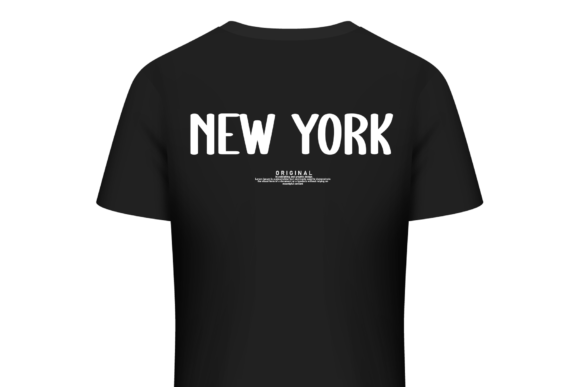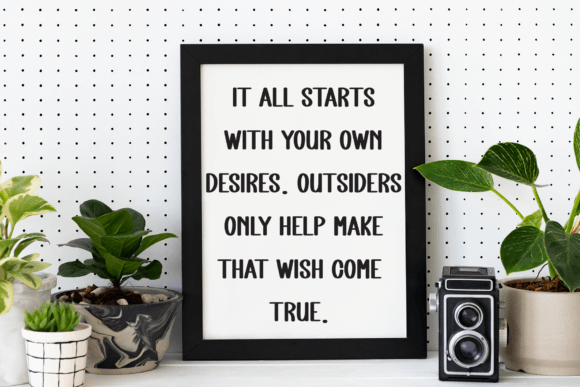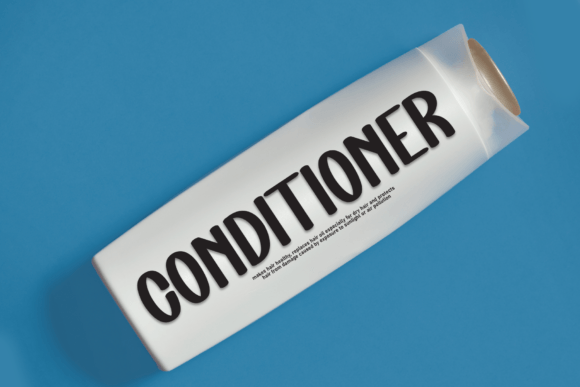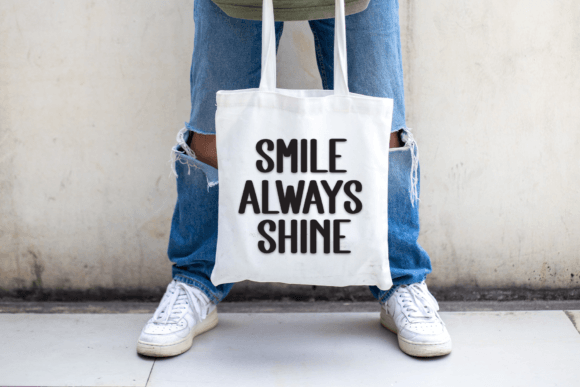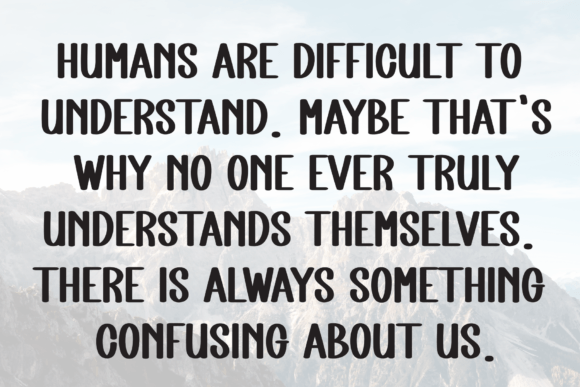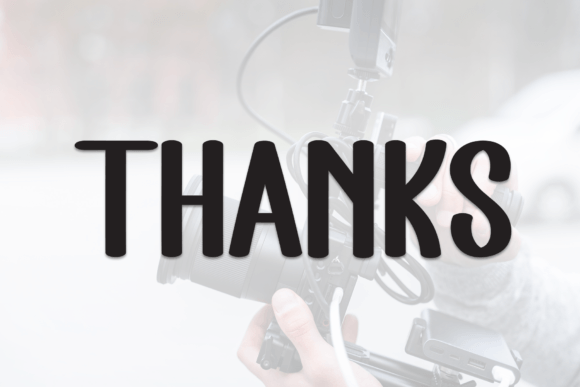
Cinematic Font: Elevate Your Designs with a Sweet and Friendly Handwritten Style
Are you tired of using the same old fonts in your designs? Look no further than Cinematic, a sweet and friendly handwritten font that’s sure to elevate your creative projects. With its natural and unique style, Cinematic is incredibly versatile and can be used in a wide range of designs, from branding and advertising to packaging and digital media. The only limit is your imagination!
The Characteristics of Cinematic Font
Cinematic is a handwritten font that’s characterized by its smooth, flowing lines and natural, effortless style. It’s a font that’s designed to look like it was written by hand, with a personal touch that’s hard to replicate with traditional fonts. The letters are rounded and friendly, with a subtle imperfections that give it a human feel. This makes Cinematic perfect for designs that require a personal touch, such as invitations, greeting cards, and social media graphics.
The Benefits of Using Cinematic Font
So why choose Cinematic font for your designs? Here are just a few benefits of using this versatile and stylish font:
- Unique and eye-catching: Cinematic font is unlike any other font out there. Its unique style and natural look make it stand out from the crowd, ensuring that your designs will grab attention and leave a lasting impression.
- Versatile: Cinematic font can be used in a wide range of designs, from formal and professional to casual and playful. Whether you’re creating a logo, brochure, or social media graphic, Cinematic font is sure to fit the bill.
- Easy to read: Despite its handwritten style, Cinematic font is incredibly easy to read, even at small sizes. This makes it perfect for body text, as well as headlines and titles.
- Customizable: Cinematic font can be easily customized to fit your design needs. Whether you want to change the color, size, or style, Cinematic font is easy to work with and can be tailored to fit your brand’s unique style.
How to Use Cinematic Font in Your Designs
So how can you use Cinematic font in your designs? Here are a few ideas to get you started:
- Branding and logos: Cinematic font is perfect for creating unique and memorable logos that will help your brand stand out.
- Invitations and greeting cards: The personal and handwritten style of Cinematic font makes it perfect for invitations, greeting cards, and other personal correspondence.
- Social media graphics: Cinematic font is a great choice for social media graphics, including Facebook posts, Instagram stories, and Twitter headers.
- Packaging and labels: Cinematic font can add a personal touch to packaging and labels, making your products stand out on store shelves.
Tips and Tricks for Working with Cinematic Font
Here are a few tips and tricks for getting the most out of Cinematic font:
- Experiment with different sizes: Cinematic font looks great at a wide range of sizes, from small body text to large headlines. Experiment with different sizes to find the one that works best for your design.
- Play with colors: Cinematic font can be used with a wide range of colors, from bright and bold to subtle and muted. Experiment with different colors to find the one that works best for your design.
- Mix and match: Cinematic font can be paired with a wide range of other fonts and design elements. Experiment with different combinations to find the one that works best for your design.
In conclusion, Cinematic font is a sweet and friendly handwritten font that’s perfect for designers and crafters who want to add a personal touch to their designs. With its natural and unique style, Cinematic font is incredibly versatile and can be used in a wide range of designs. Whether you’re creating a logo, invitation, or social media graphic, Cinematic font is sure to elevate your creative projects and help you stand out from the crowd.